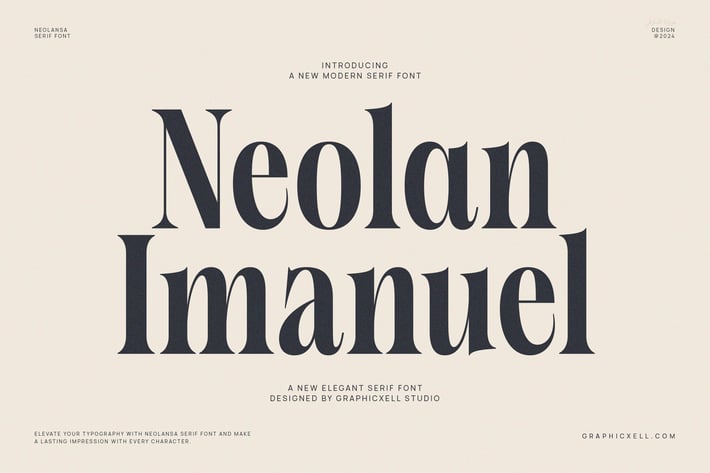
Neolan Imanuel Modern and Elegant Serif Font Text
Neolan Imanuel is a modern and elegant serif font designed to enhance your creative projects with a touch of sophistication. This font combines classic serif details with a fresh, contemporary style, making it ideal for a wide range of design uses. As a result, it perfectly suits branding, editorial layouts, packaging, and digital media.
One of the main strengths of Neolan Imanuel is its balance between tradition and modernity. Its clean lines and refined curves offer excellent readability while adding a stylish flair. Therefore, this font helps your projects look professional and polished without losing a human touch.
In addition, Neolan Imanuel comes with various weights, which provide design flexibility. This allows you to create strong headlines and elegant body text that complement each other well. Moreover, the font supports uppercase, lowercase, numbers, and punctuation, making it a complete typeface family for diverse needs.
Here are key features and uses of Neolan Imanuel Serif:
- Modern serif design with elegant curves
- Multiple weights for versatile typography
- Suitable for branding, editorial, and packaging
- Clear and readable in print and digital formats
- Perfect for logos, headlines, body text, and captions
Furthermore, this font family is highly adaptable. Whether you are working on a website, magazine, or product packaging, Neolan Imanuel delivers a refined and clear visual impact. It adds personality without overwhelming the design, which makes it an excellent choice for many creative projects.
In conclusion, Neolan Imanuel is a stylish serif font that blends modern elegance with classic readability. Thanks to its versatile weights and clean design, it offers both beauty and functionality. If you want to create memorable, professional designs, Neolan Imanuel Serif is a perfect option.
One of the main strengths of Neolan Imanuel is its balance between tradition and modernity. Its clean lines and refined curves offer excellent readability while adding a stylish flair. Therefore, this font helps your projects look professional and polished without losing a human touch.
In addition, Neolan Imanuel comes with various weights, which provide design flexibility. This allows you to create strong headlines and elegant body text that complement each other well. Moreover, the font supports uppercase, lowercase, numbers, and punctuation, making it a complete typeface family for diverse needs.
Here are key features and uses of Neolan Imanuel Serif:
- Modern serif design with elegant curves
- Multiple weights for versatile typography
- Suitable for branding, editorial, and packaging
- Clear and readable in print and digital formats
- Perfect for logos, headlines, body text, and captions
Furthermore, this font family is highly adaptable. Whether you are working on a website, magazine, or product packaging, Neolan Imanuel delivers a refined and clear visual impact. It adds personality without overwhelming the design, which makes it an excellent choice for many creative projects.
In conclusion, Neolan Imanuel is a stylish serif font that blends modern elegance with classic readability. Thanks to its versatile weights and clean design, it offers both beauty and functionality. If you want to create memorable, professional designs, Neolan Imanuel Serif is a perfect option.